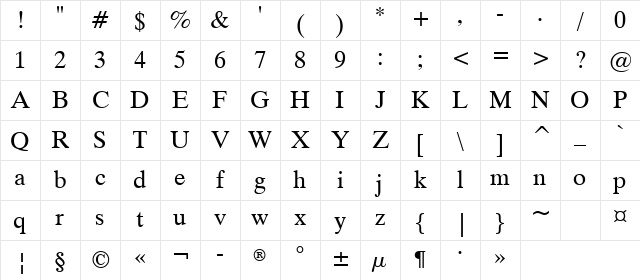
Dutch801Cyril BT Roman
Design Context for Dutch801Cyril BT
Dutch801Cyril BT is a composed and adaptable typeface that performs quietly and consistently across a wide range of design contexts.
Pro Tip: Use Dutch801Cyril BT in both headline and body roles to test its range before committing to a single application.